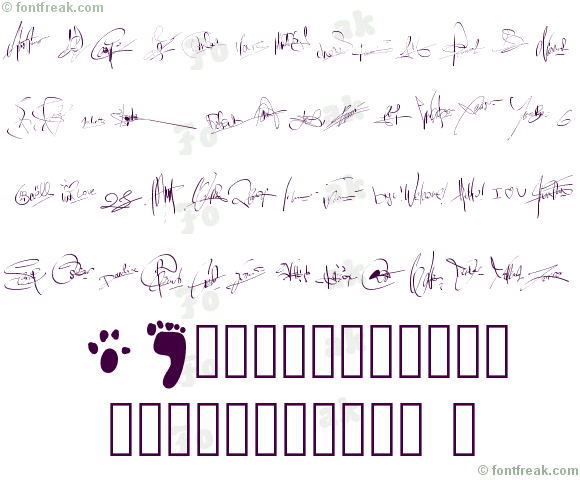
PWSignatures
About PWSignatures
PWSignatures, created by Peax Webdesign, is a unique handwritten font that embodies a personal touch and artistic flair. This script-style font features fluid strokes and a dynamic flow, reminiscent of elegant cursive writing. The varying stroke weights create a sense of movement and spontaneity, while the gentle contrast adds sophistication to its overall appearance. The spacing between the letters is thoughtfully balanced, making it easy to read while maintaining a stylish look.
This versatile font is ideal for a range of creative applications. Wedding invitations can benefit from PWSignatures' romantic aesthetic, adding a heartfelt element to the big day. Similarly, it works wonderfully for branding materials, giving small businesses a warm and inviting presence. Content creators can leverage its charm in social media graphics or blog headers, capturing the attention of their audience with a distinctive style. Additionally, PWSignatures can enhance restaurant menus, providing an upscale, personalized feel that resonates with diners looking for a unique dining experience.
What truly sets the PWSignatures font apart is its ability to blend casual elegance with professional appeal. It speaks to those who appreciate the beauty of handwritten elements while still needing legibility and versatility. Whether you are crafting a heartfelt invitation or designing eye-catching marketing materials, the PWSignatures font free download offers a wonderful solution that elevates any design project. Embrace the charm and creativity of this font, and let it transform your work into something extraordinary.